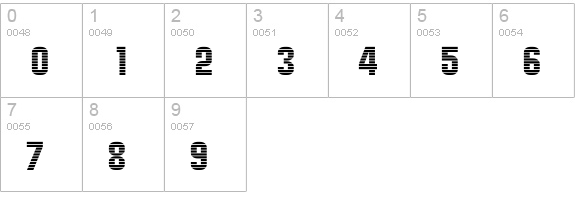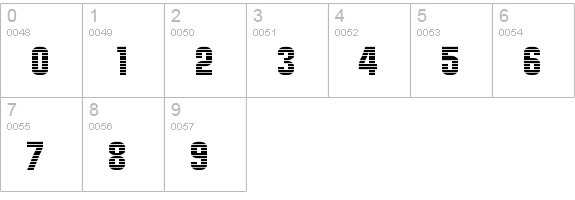
Maximus font is a stunning and versatile typeface that exudes elegance and sophistication. With its sleek lines and modern design, Maximus is perfect for a wide range of projects, from branding to editorial design. This font strikes the perfect balance between classic and contemporary, making it a must-have for any designer looking to make a statement. The best part? Maximus font is available for free download at FontsMarket.com. Don't miss out on the opportunity to add this beautiful font to your collection today and elevate your designs to the next level. Get your hands on Maximus font now and let your creativity soar!